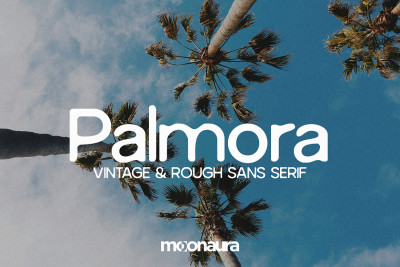
Palmora - Vintage & Rough Sans Font
Designers reaching for Palmora - Vintage & Rough Sans find a typeface that holds up across diverse media — print, web, and motion.
Common applications include business cards, posters, web headers, advertising materials, book covers, and corporate identity systems.
Explore what Palmora - Vintage & Rough Sans can do for your work and experience the difference a well-crafted typeface makes.